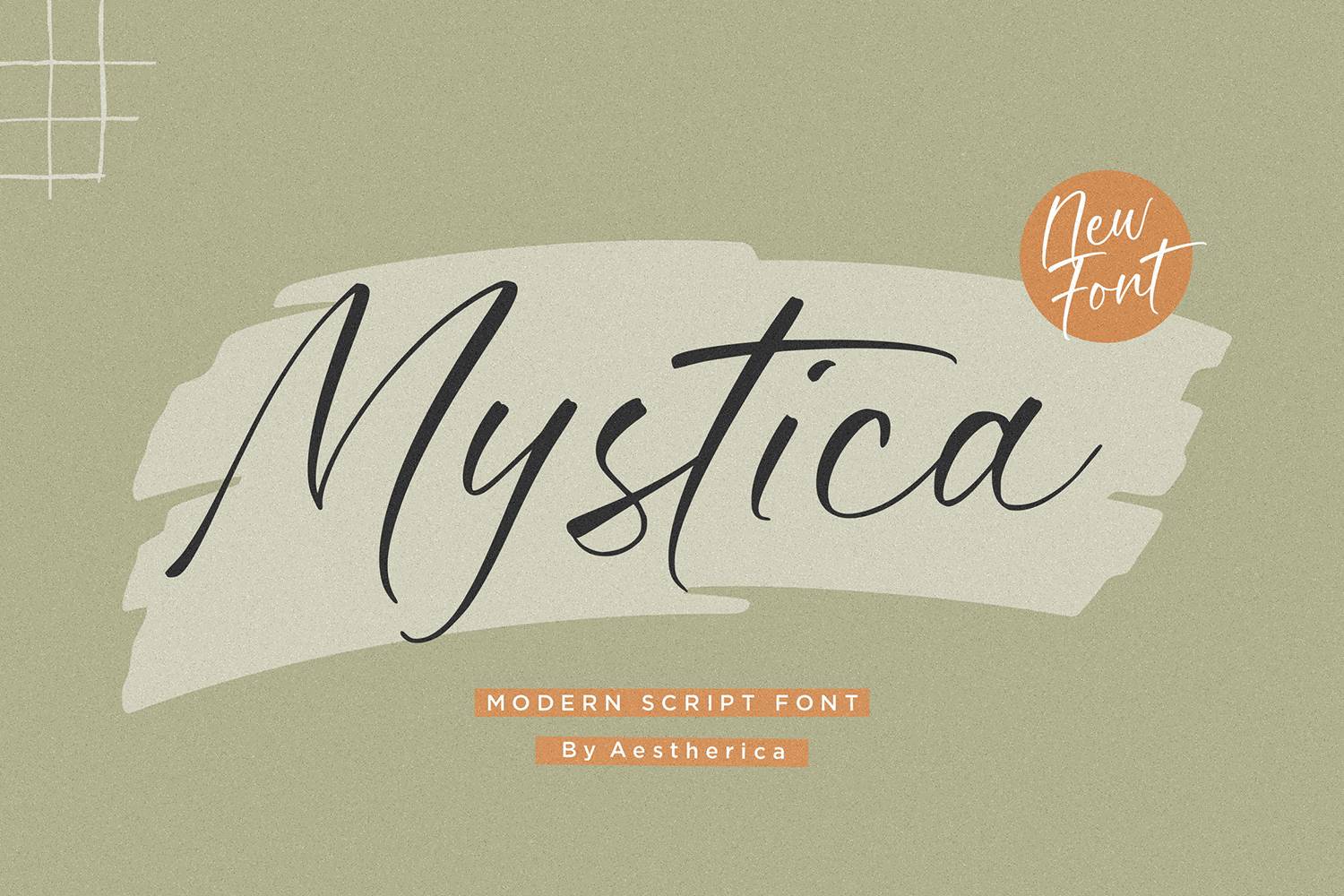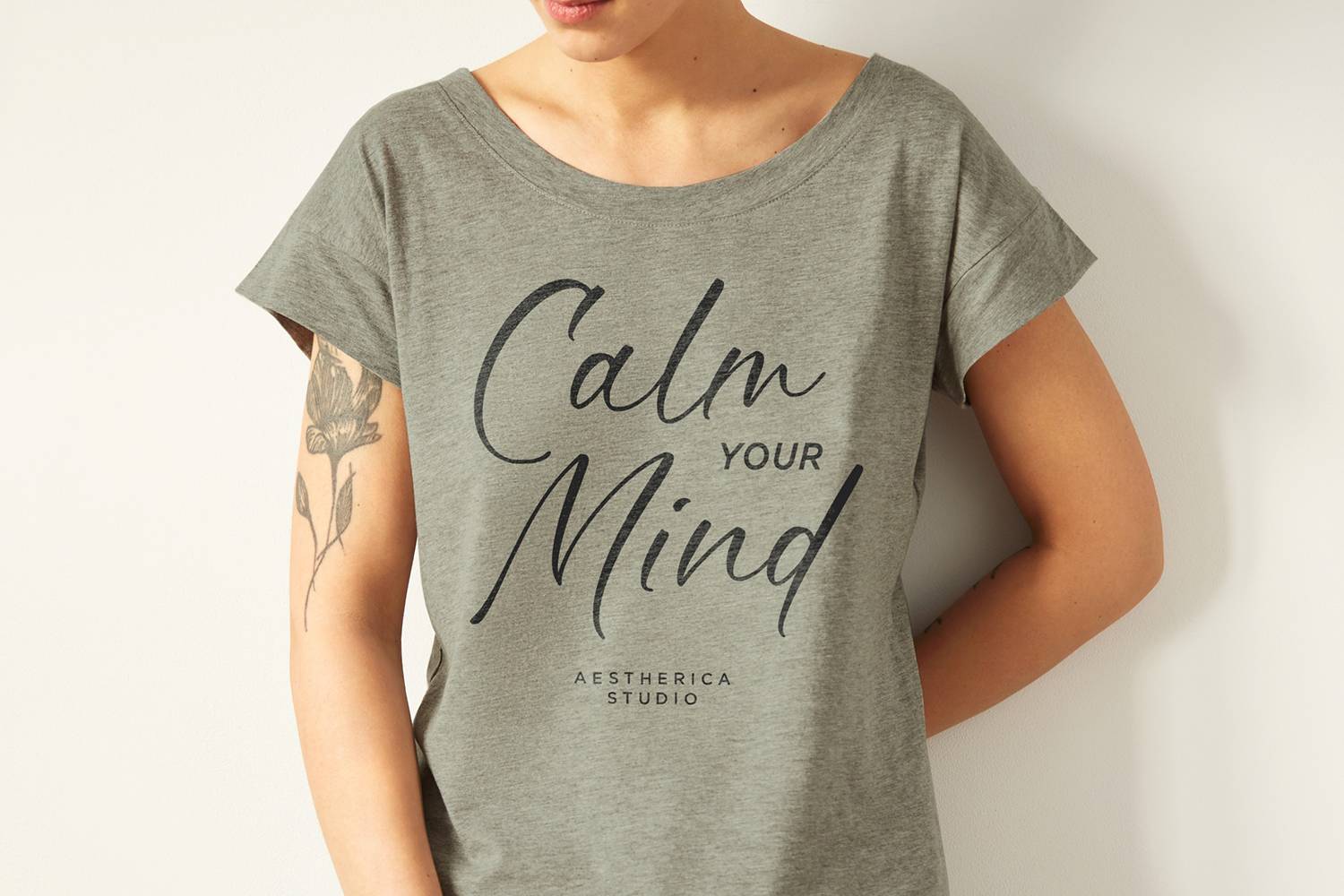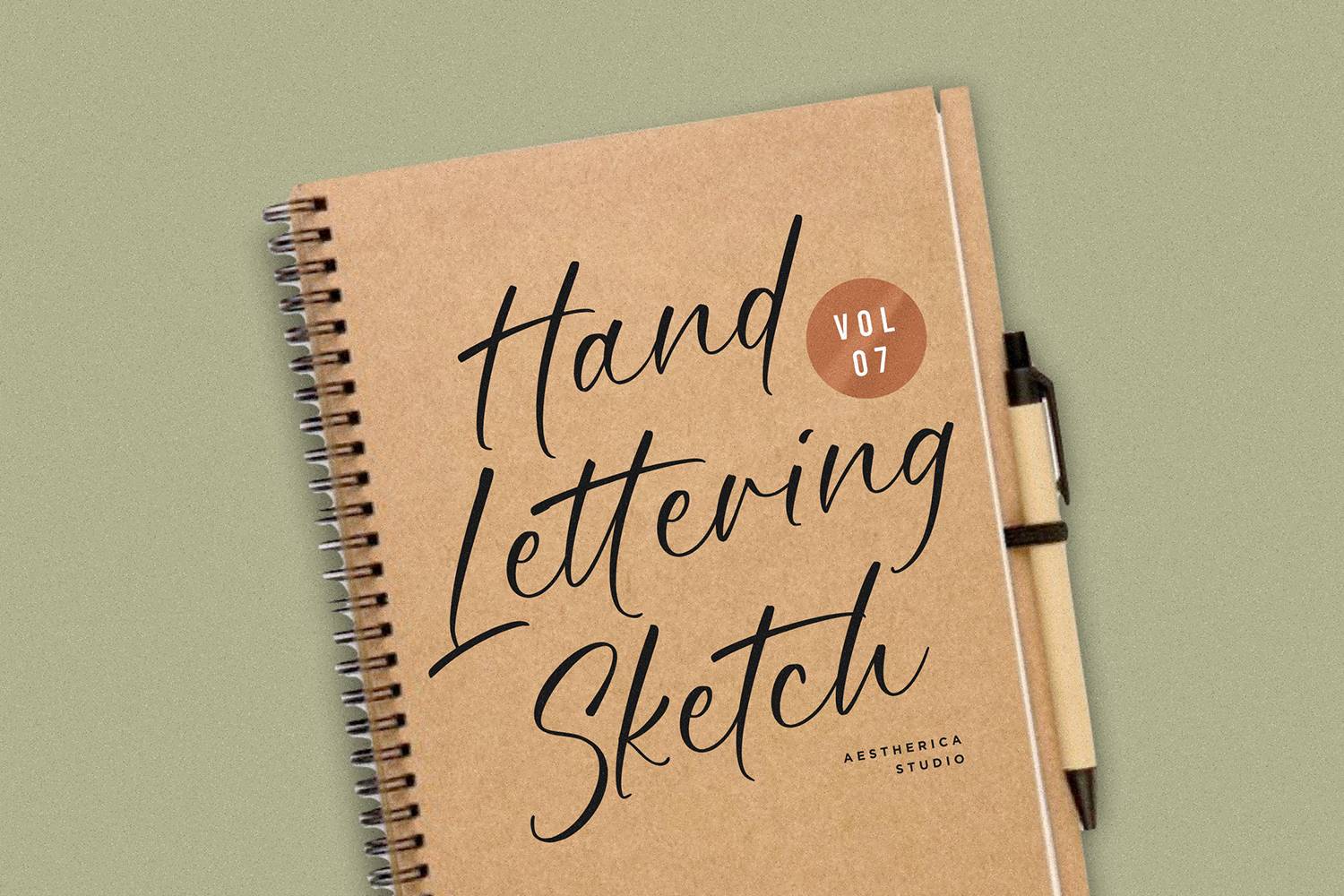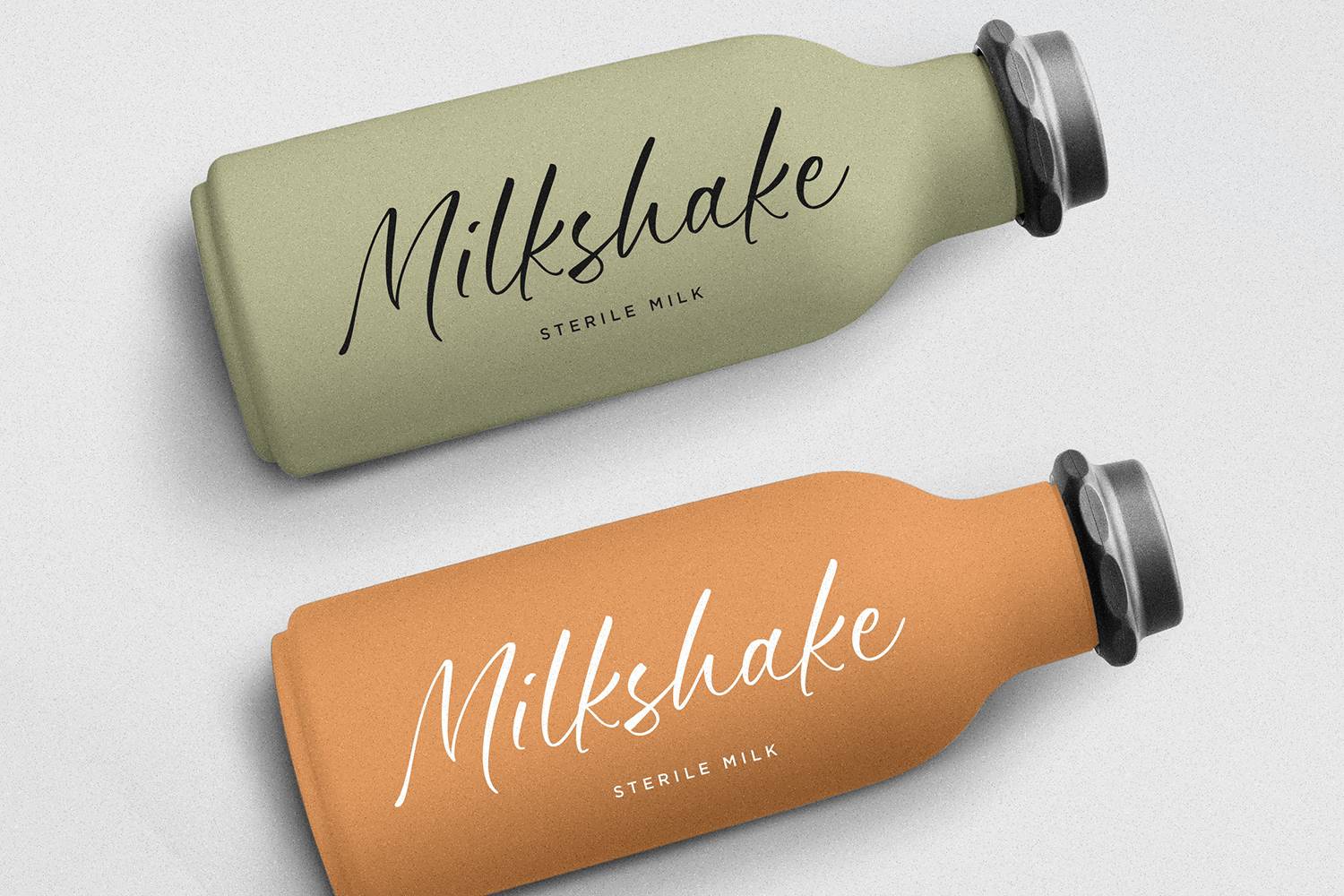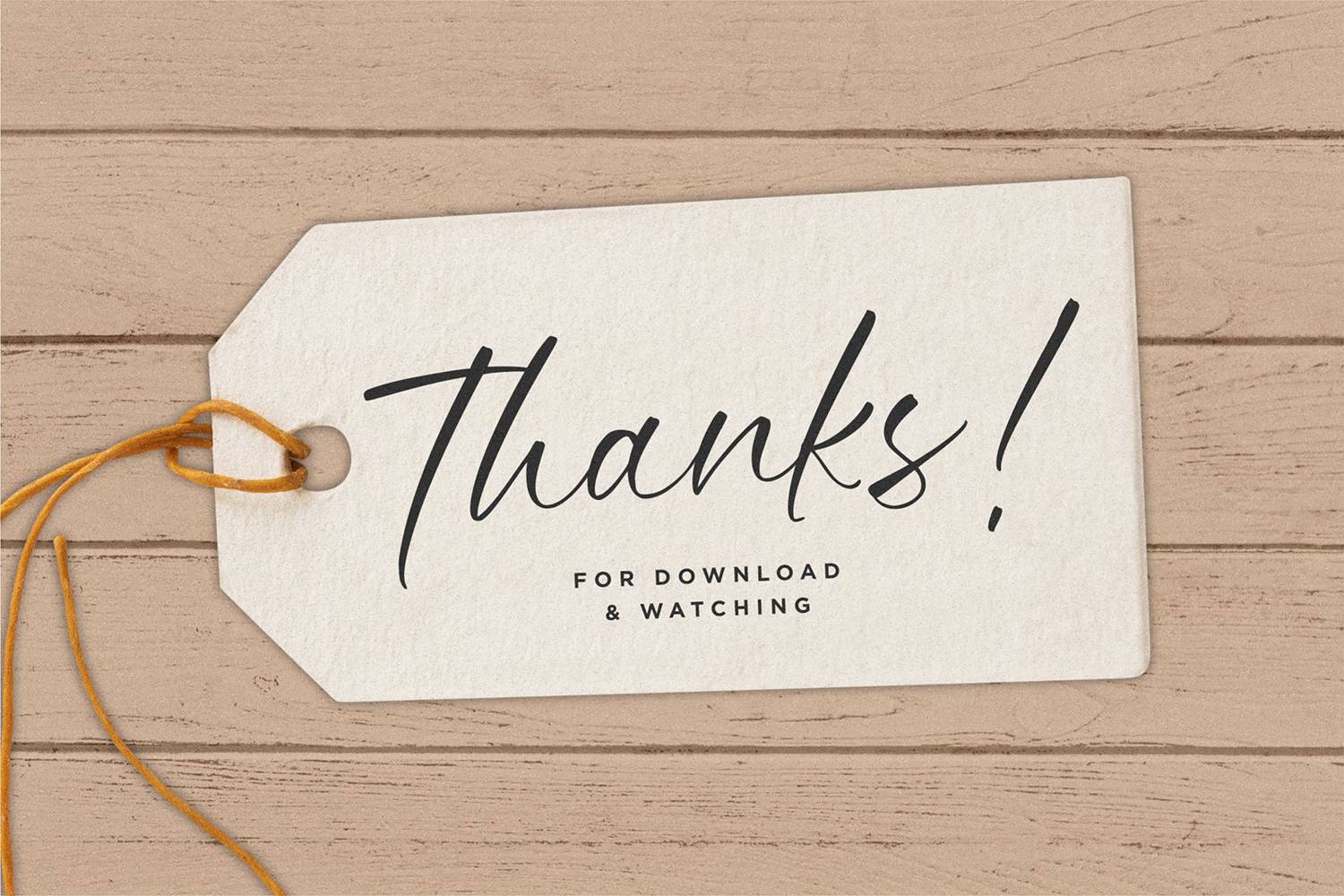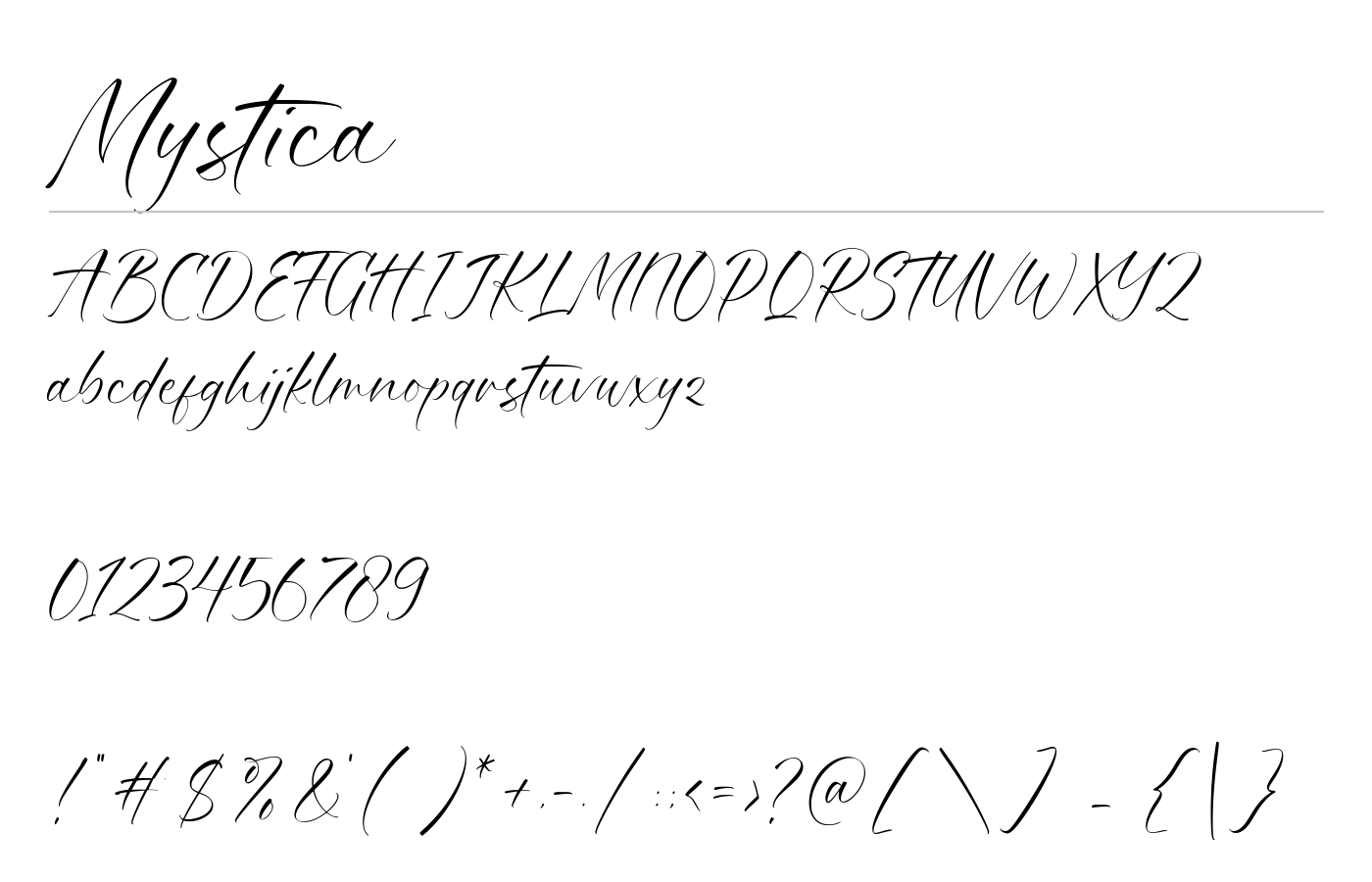
Mystica is an elegant, handwritten script font characterized by its slender, flowing strokes and delicate, slightly irregular letterforms that evoke a natural calligraphic style. Its light weight and airy spacing make it perfect for adding a personal, sophisticated touch to invitations, branding, and fashion projects where a graceful and refined look is desired. This font works beautifully in headlines and decorative text, lending a sense of charm and luxury without overwhelming the design.
Mystica Font
About Mystica Font